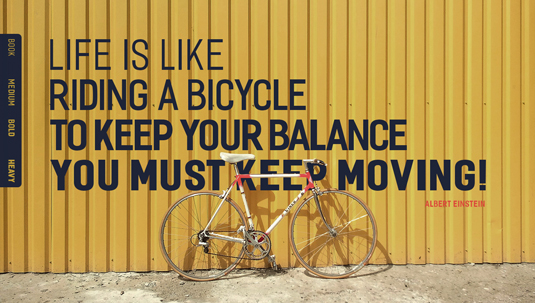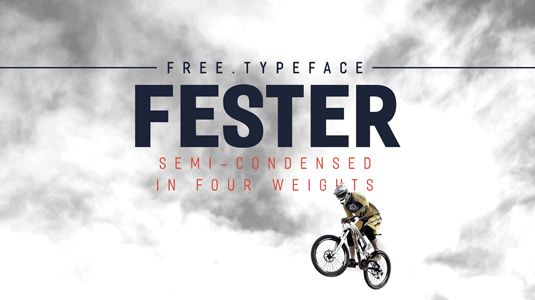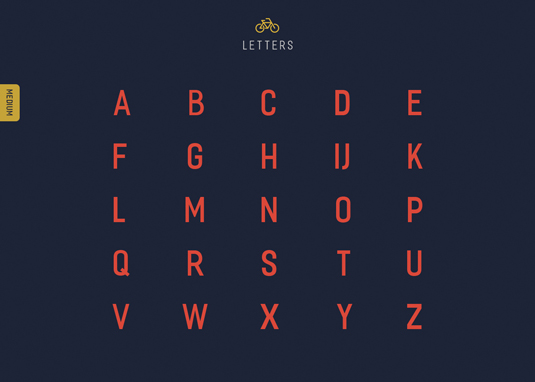
Font of the day: Fester
Fester by Nawras Moneer
An uppercase, semi-condensed, sans serif typeface, Fester was created by graphic designer Nawras Moneer. "Its gentle, clean appearance makes it a suitable typeface for headlines, posters, titles and captions," he comments on Behance.